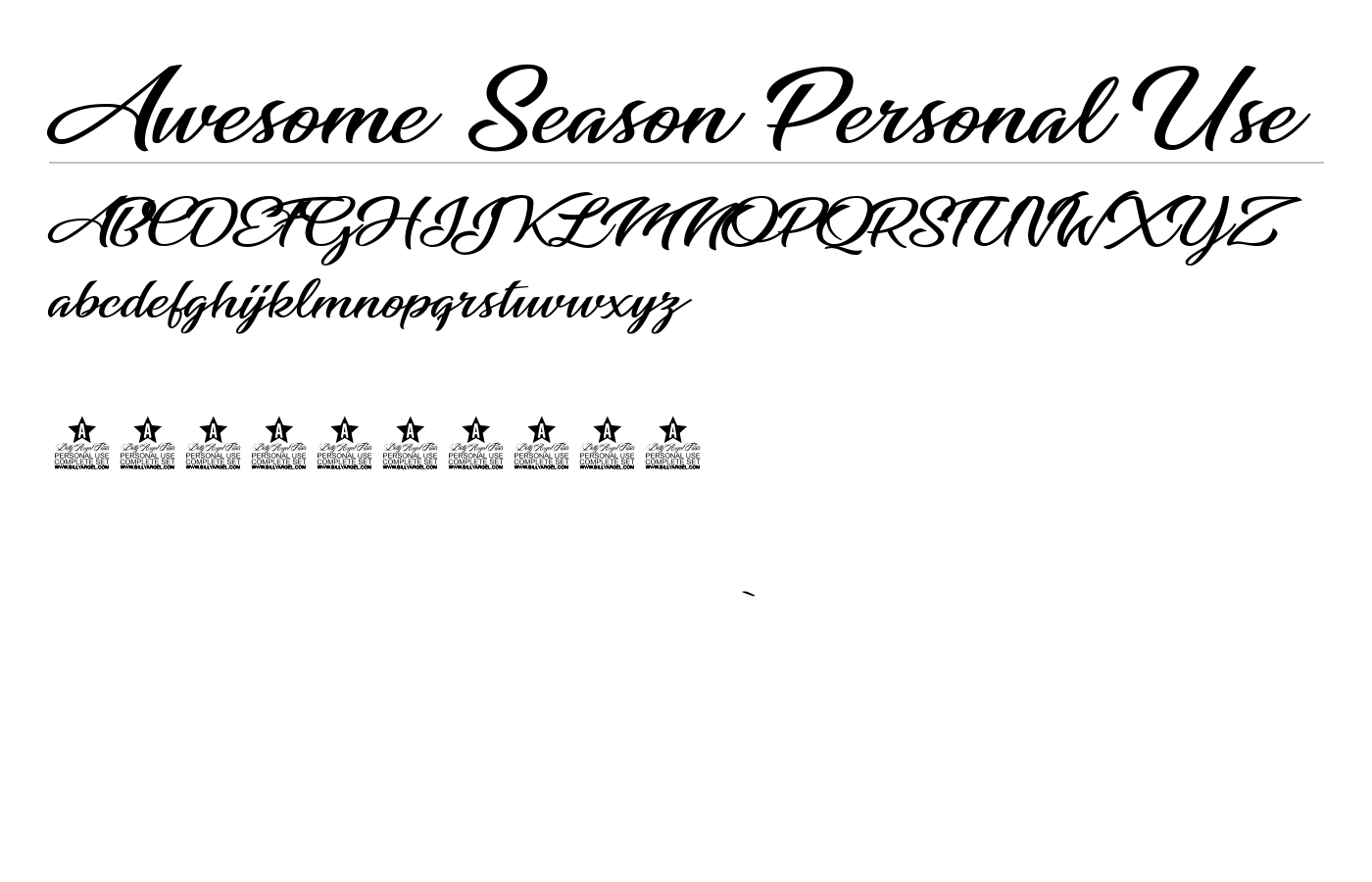
Awesome Season Personal Use is an elegant, script-style font featuring smooth, flowing strokes and a refined, handwritten feel. Its moderate contrast and cursive letterforms make it perfect for adding a touch of sophistication and warmth to invitations, branding, and personal projects. This font works well where a graceful, classy impression is desired without being overly formal.
Awesome Season Personal Use Font
About Awesome Season Personal Use Font